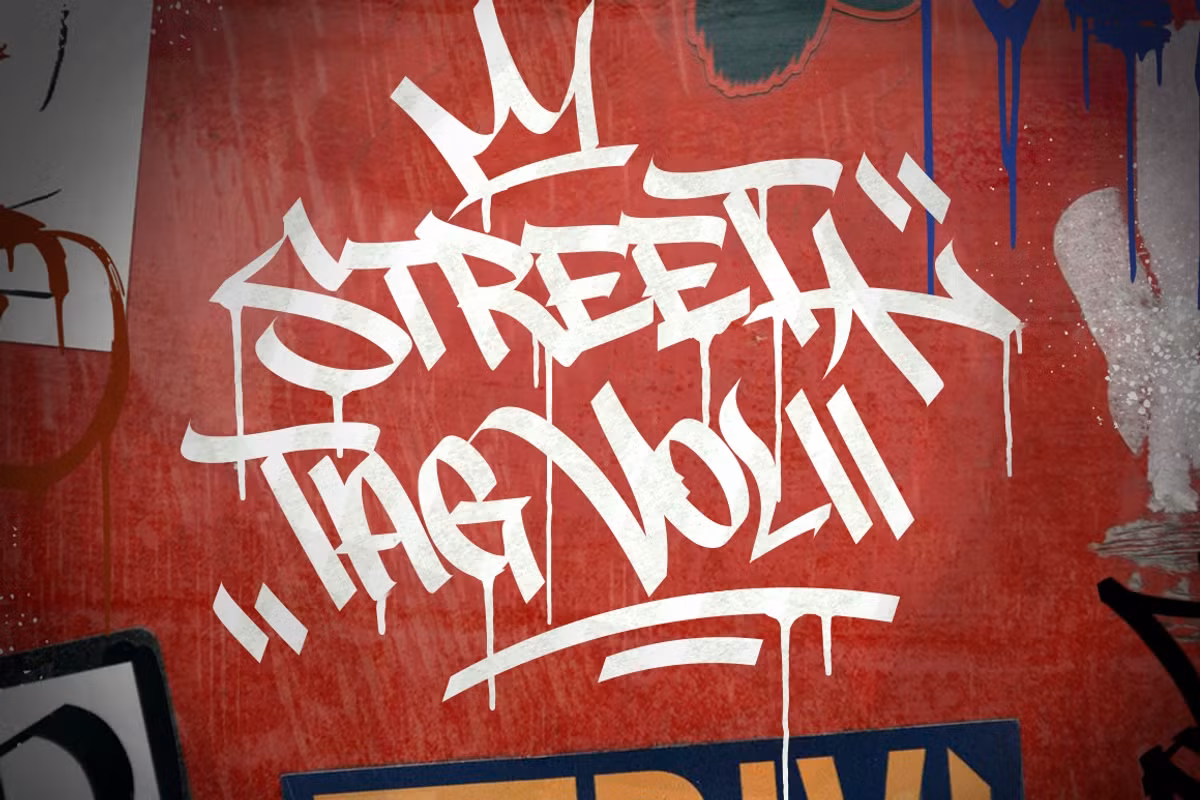
Street Tag Vol2 Font Free Download is a bold and energetic typeface inspired by urban street art and graffiti culture. With its rough edges and dynamic style, this font is perfect for creating eye-catching logos, posters, album covers, and branding for streetwear or music events. Its unique, hand-drawn aesthetic adds a raw, authentic vibe to your designs, making it ideal for projects that need to stand out with attitude and creativity. Whether you’re designing for a music artist, streetwear brand, or urban event, Street Tag Vol2 Free Download allows you to experiment with its expressive style in personal projects before purchasing a commercial license. Add an urban, graffiti-inspired flair to your designs with this impactful and stylish font.